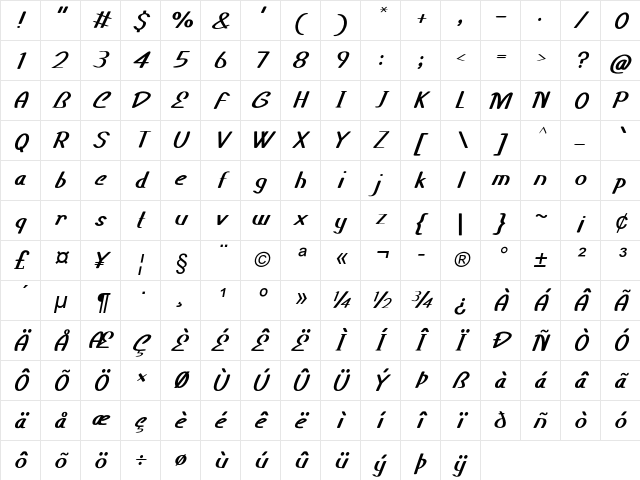
Parkshire Italic
Design Context for Parkshire
Parkshire is a composed and adaptable typeface that performs quietly and consistently across a wide range of design contexts. The slanted form adds forward momentum and visual energy.
Pro Tip: Use Parkshire for emphasis, pull quotes, and subheadings where its slanted energy can add rhythm to the layout.